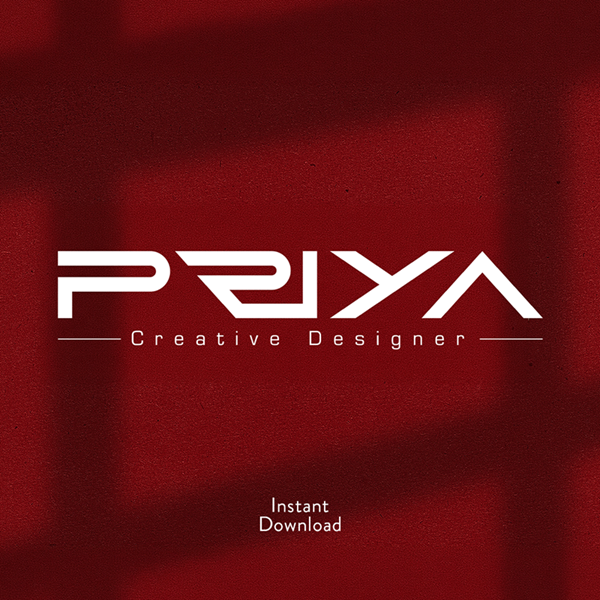
Creative logo font
Create clean, professional, and modern typography with these premium paragraph fonts.
Creative logo font design for clean, professional, and modern typography with these premium paragraph fonts.